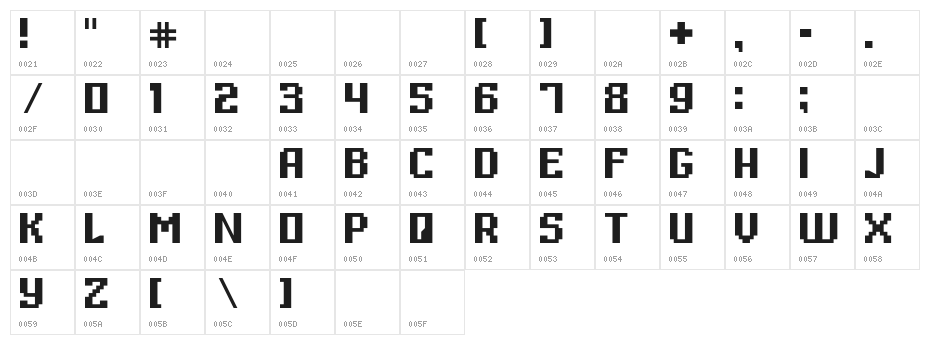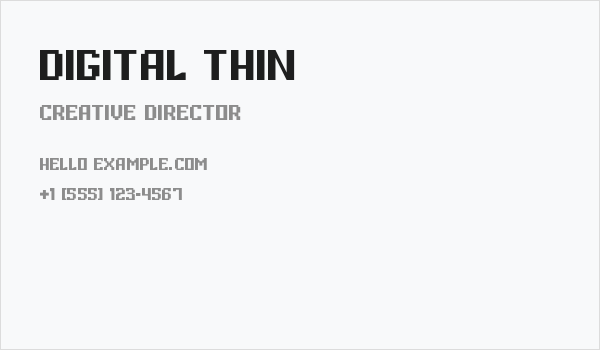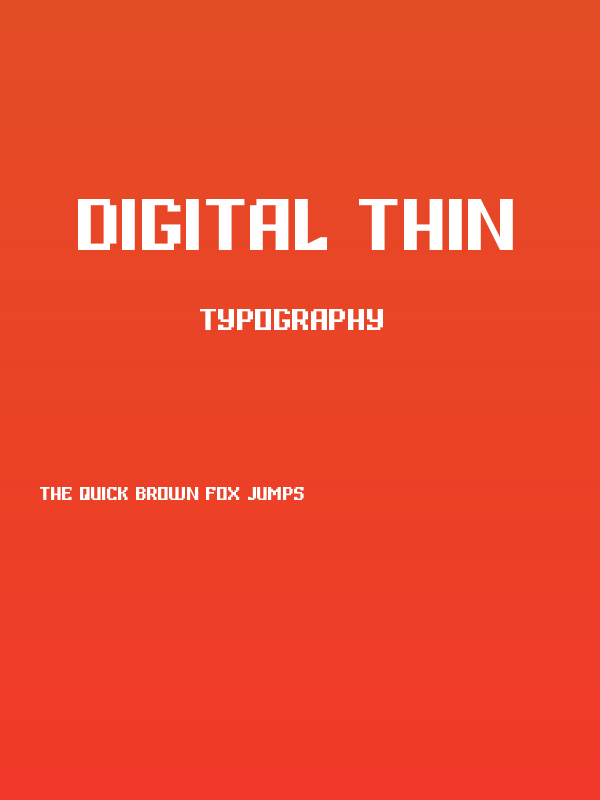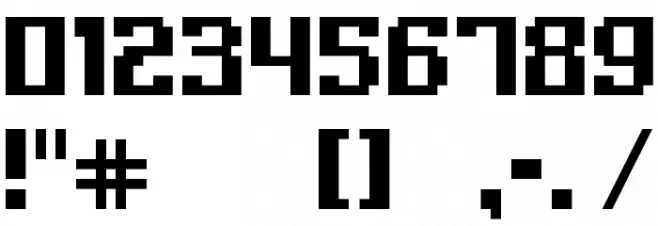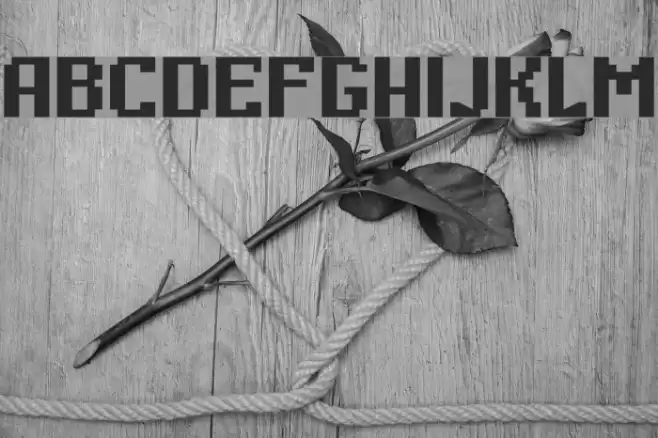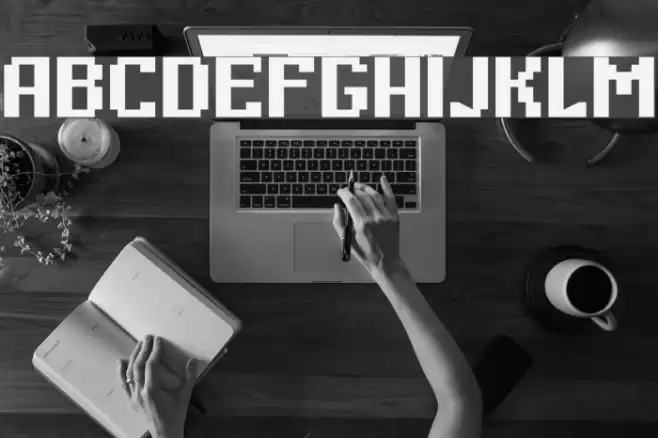
Digital Thin Font
Digital Thin Description
This font features a bold, geometric design reminiscent of digital displays and pixel art. Each character is constructed with sharp, angular lines and uniform thickness, creating a cohesive and structured appearance. The uppercase and lowercase letters maintain a consistent height, enhancing readability and uniformity. The numerals and special characters follow the same design principles, ensuring a seamless integration across different text elements. This font's digital aesthetic makes it ideal for projects that require a modern, tech-inspired look.
| Proposed Projects | Ideal for digital interfaces, tech branding, video game graphics, and futuristic designs. |